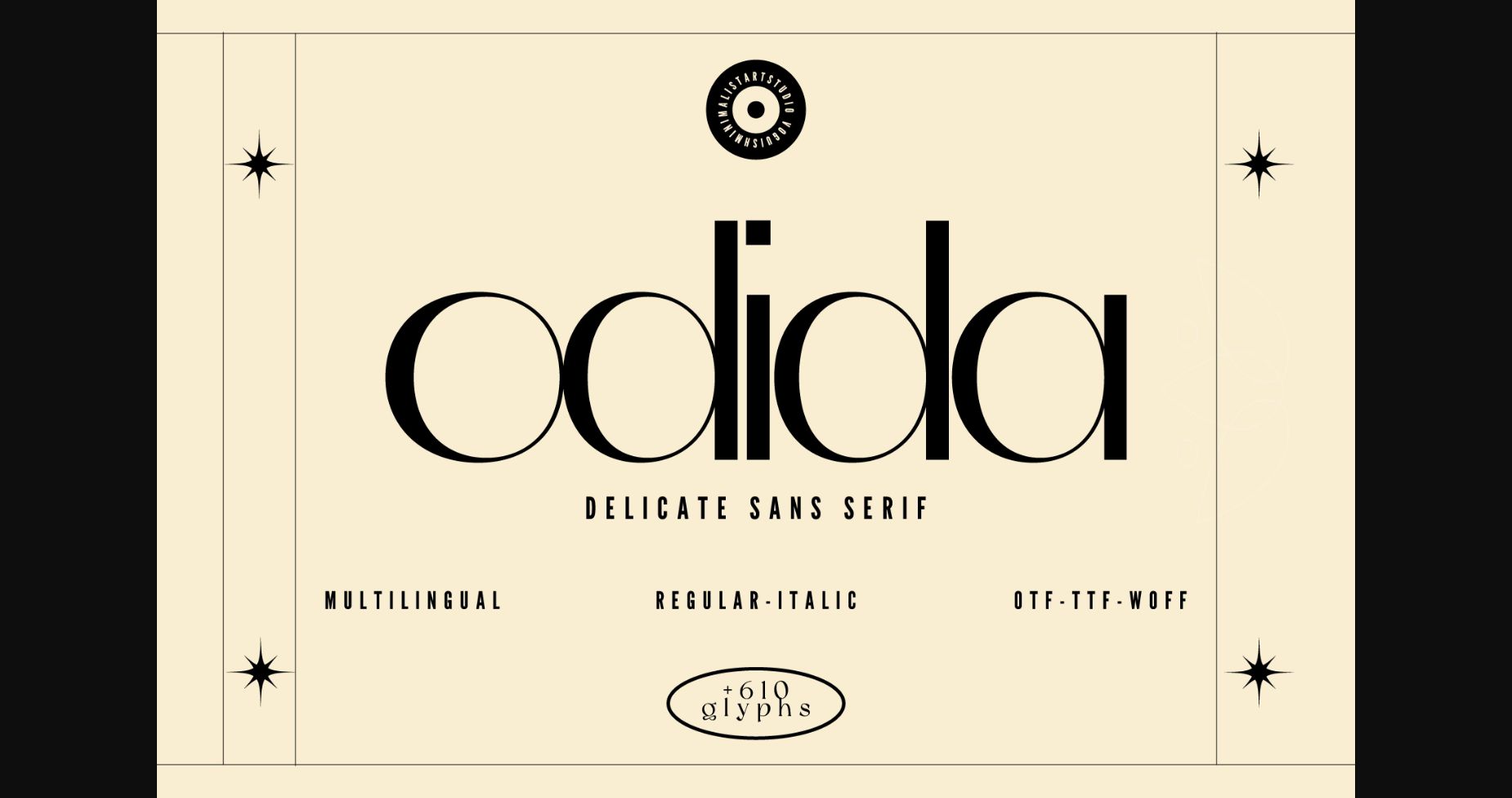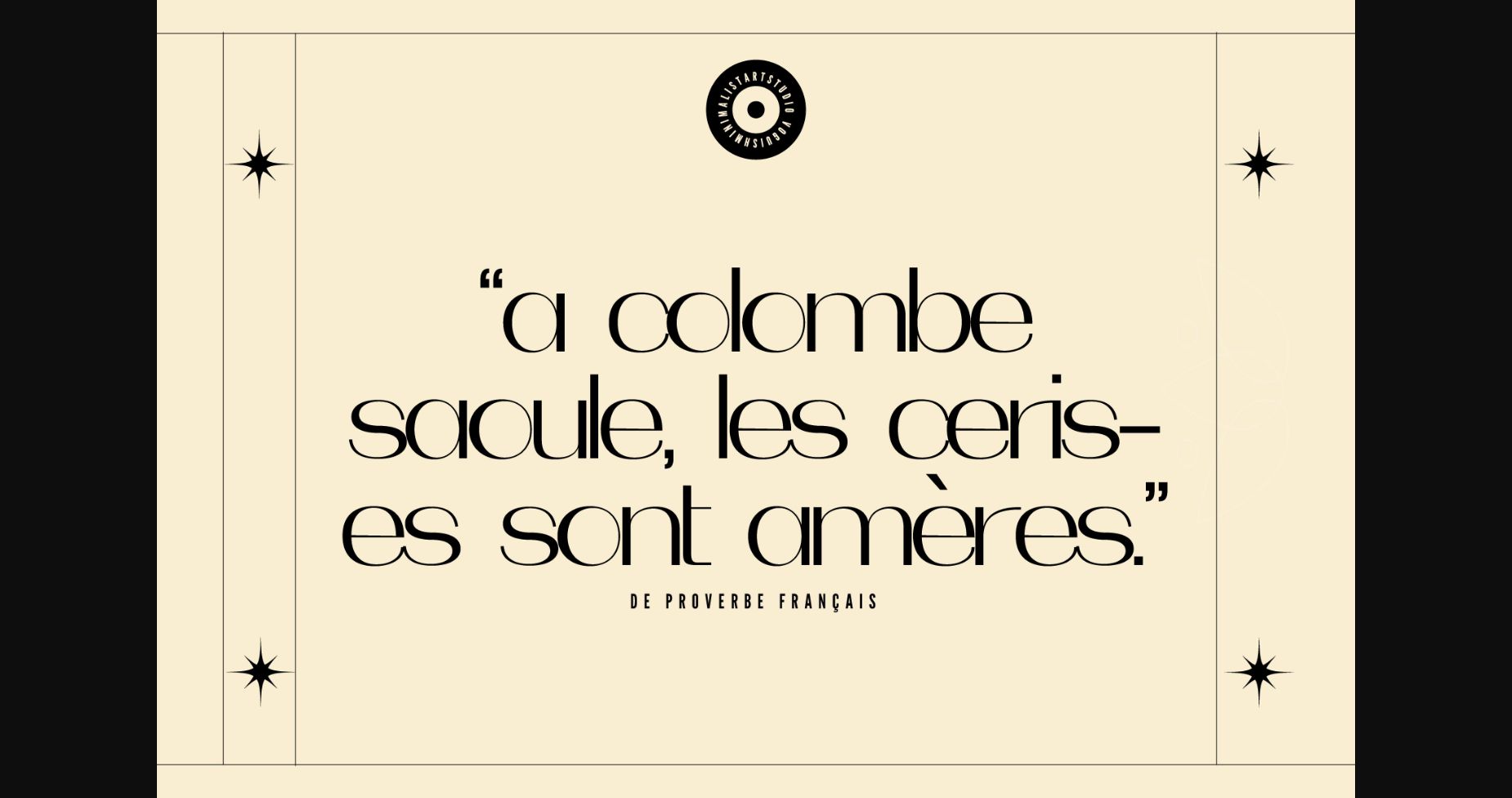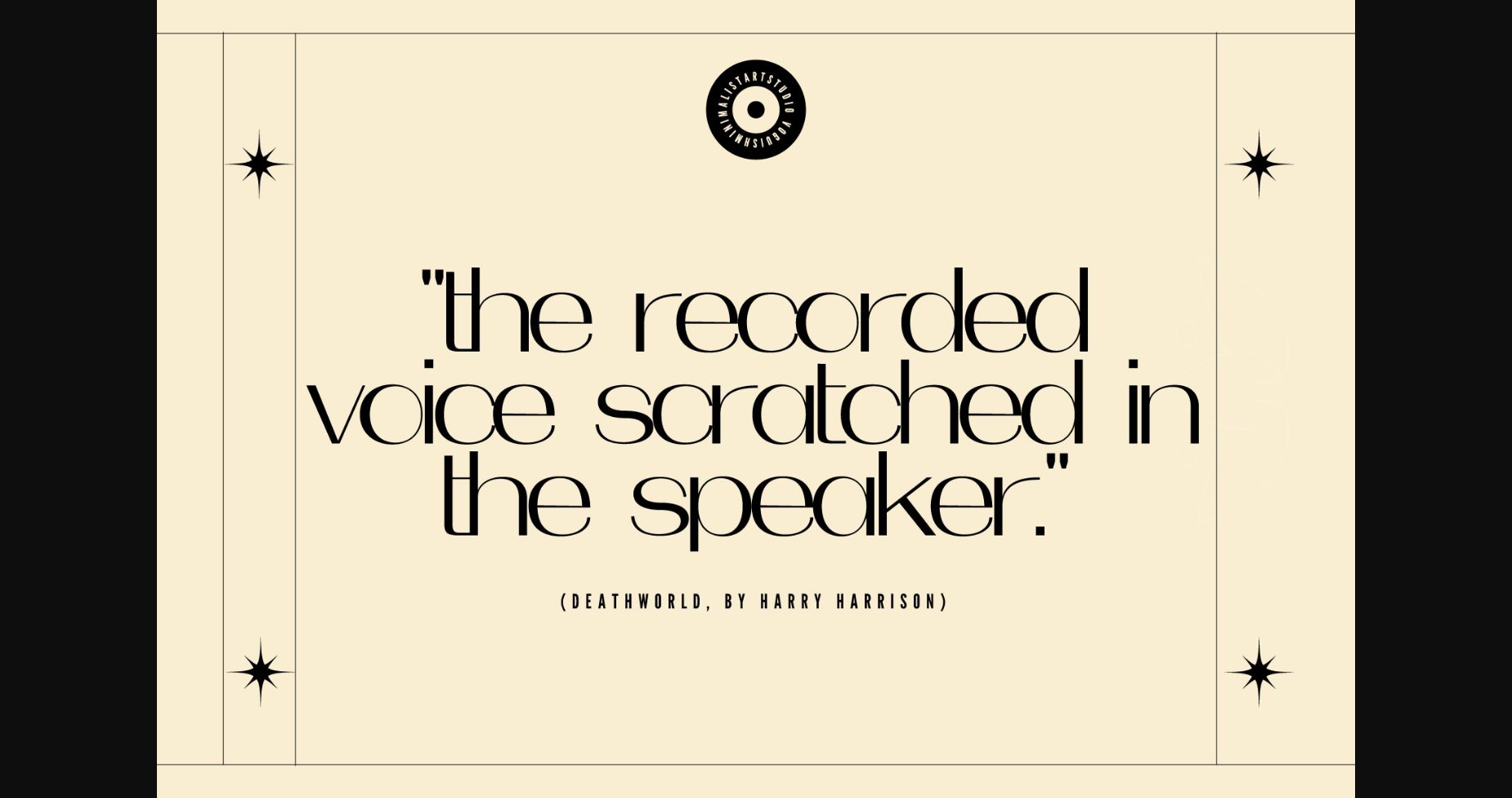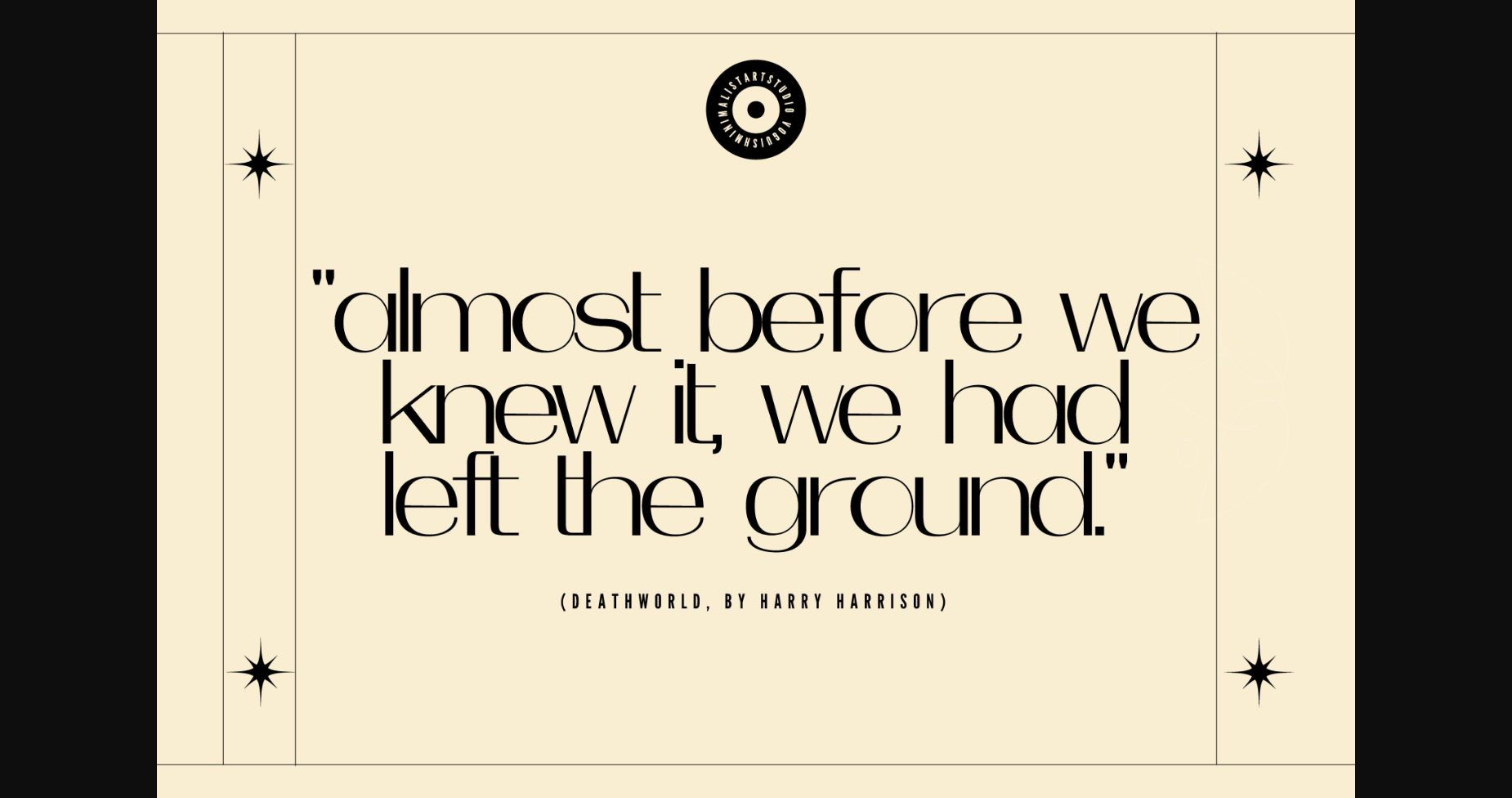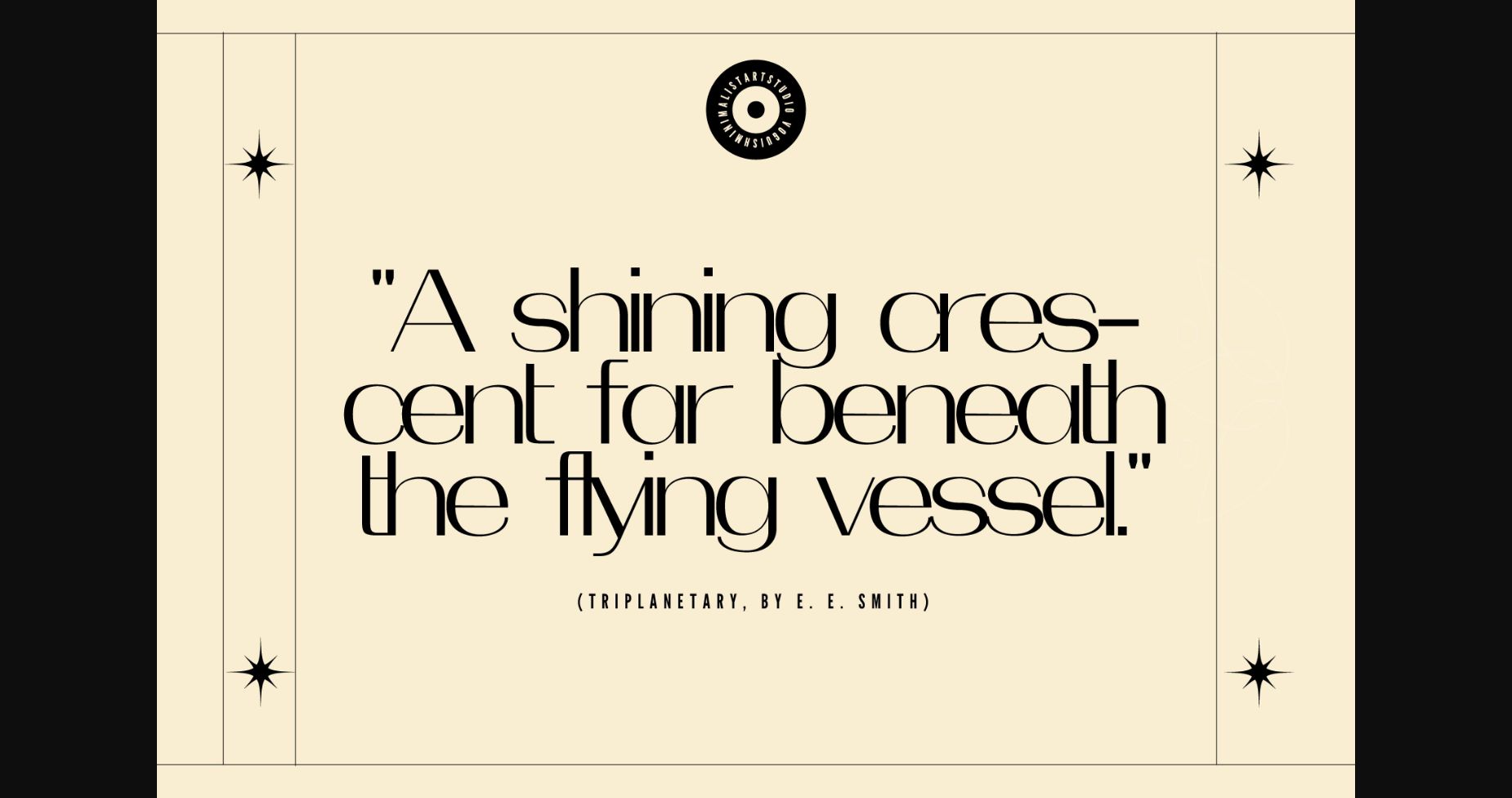
About Odida Font
The Odida is a beautiful Sans Serif font. This stunning font is designed to be a sophisticated, chic, and elegant font, perfect for creating stunning designs.
The Odida font is perfect for fashion and beauty products, luxury brand advertising, and more.